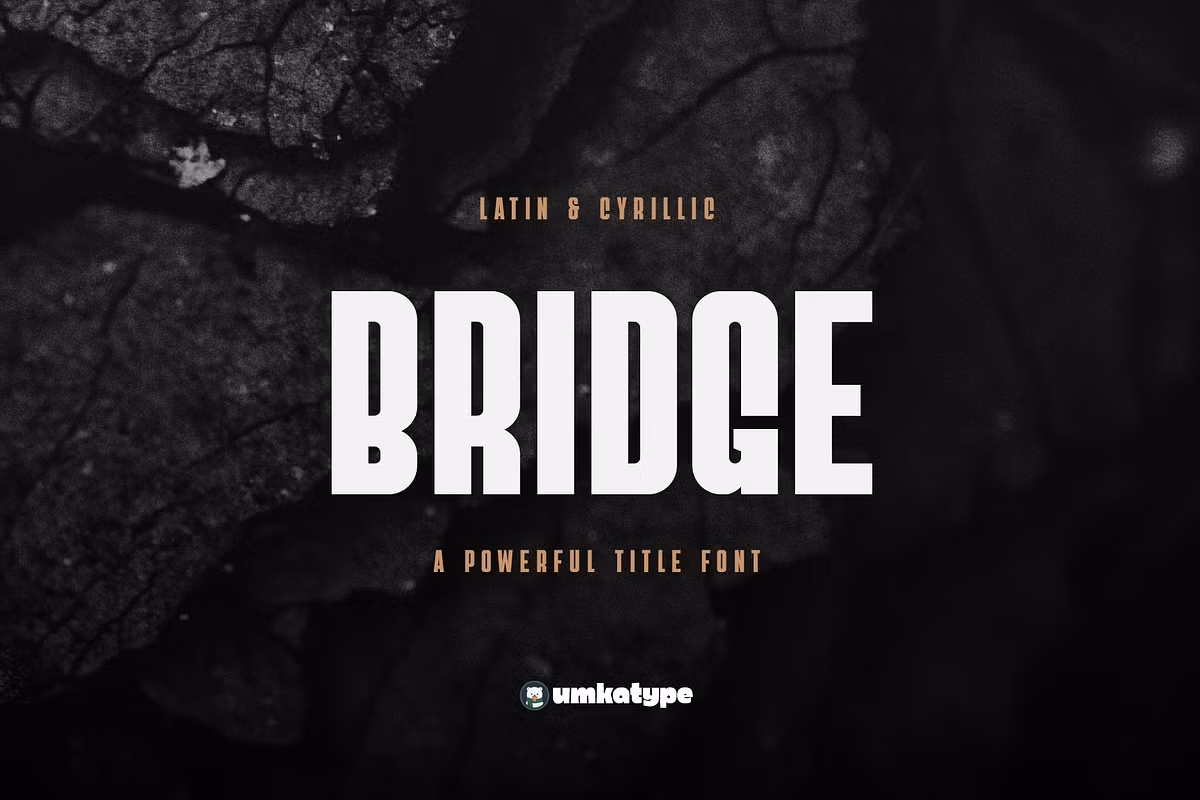
Bridge Logo Font Free Download is a clean, modern typeface designed with branding and logo creation in mind. Its bold and sleek design makes it perfect for logos, websites, promotional materials, and any project where strong, clear typography is required. With its balanced proportions and contemporary feel, this font is ideal for businesses looking for a fresh, professional look.
Whether you're designing for a corporate brand, creative agency, or a personal project, Bridge Logo Font offers versatility and elegance. Its readability and stylish appearance make it an excellent choice for high-end branding, editorial use, and digital applications.